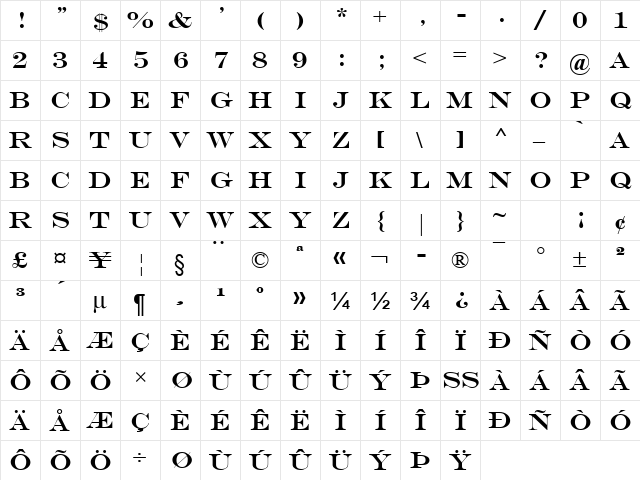
Engravers MT Regular
Design Context for Engravers MT Typeface
Engravers MT takes a measured approach to typography — its balanced proportions and neutral character make it a reliable workhorse for both digital and print work.